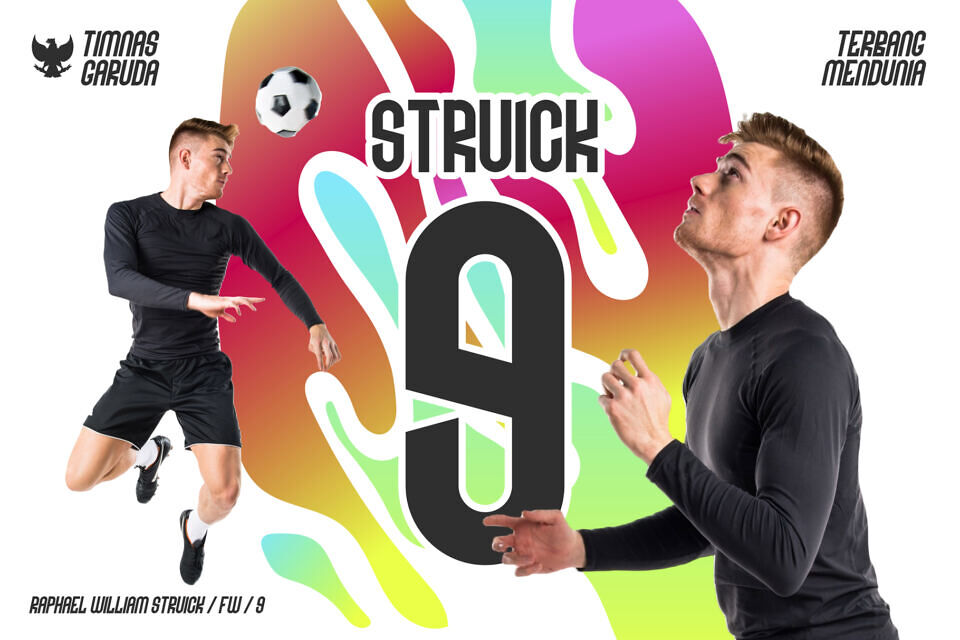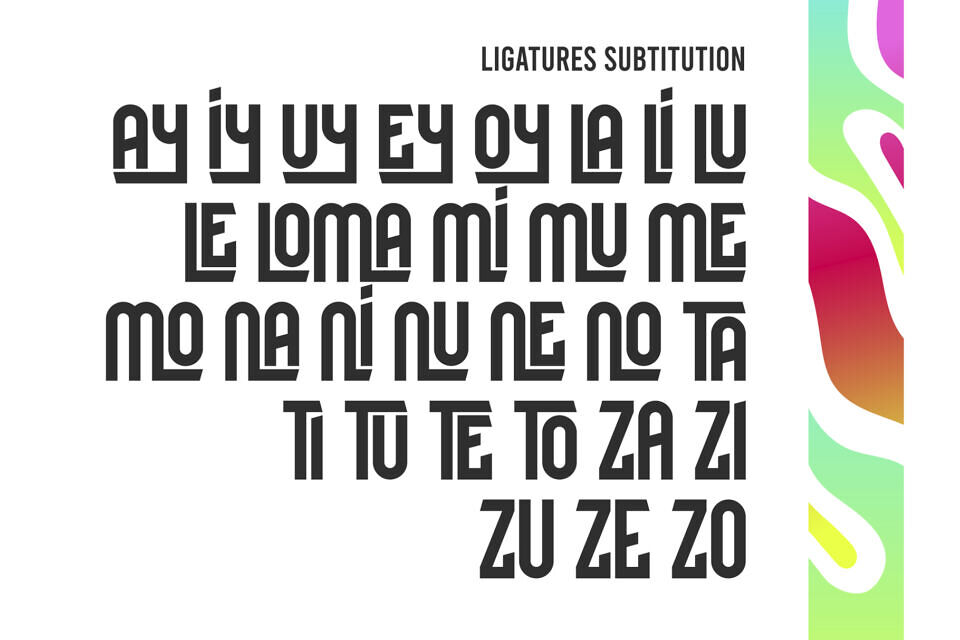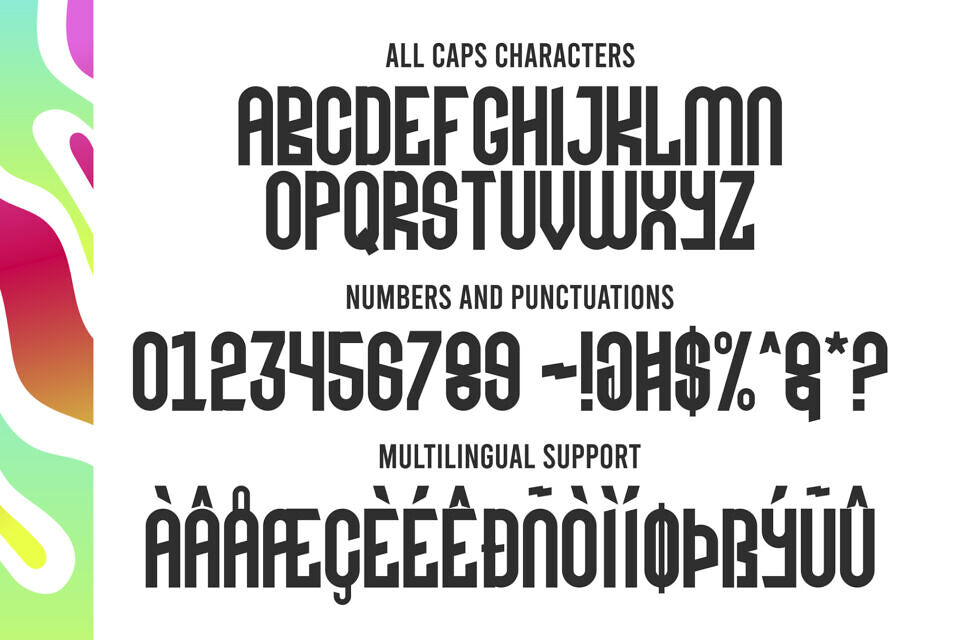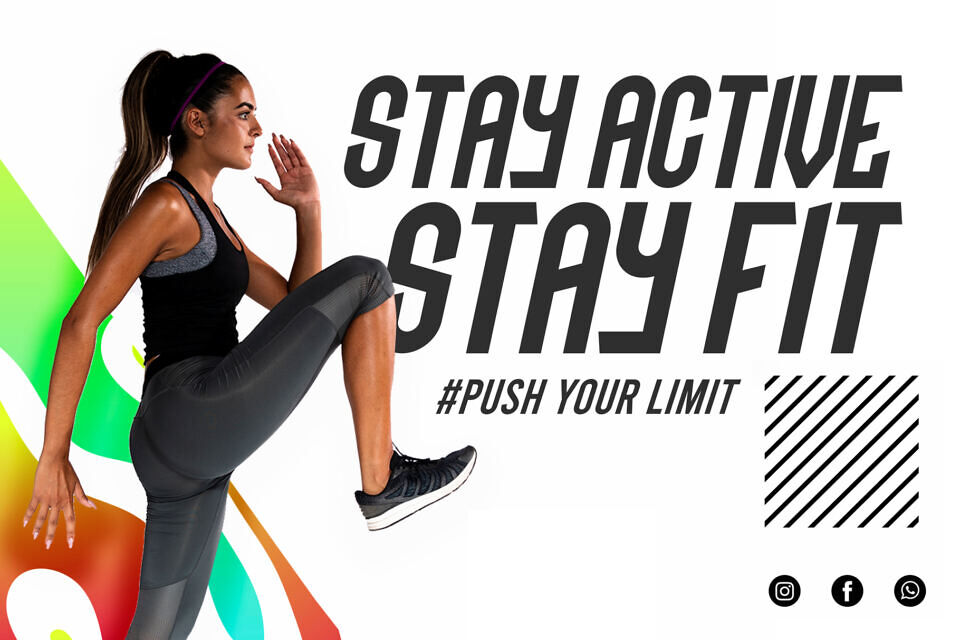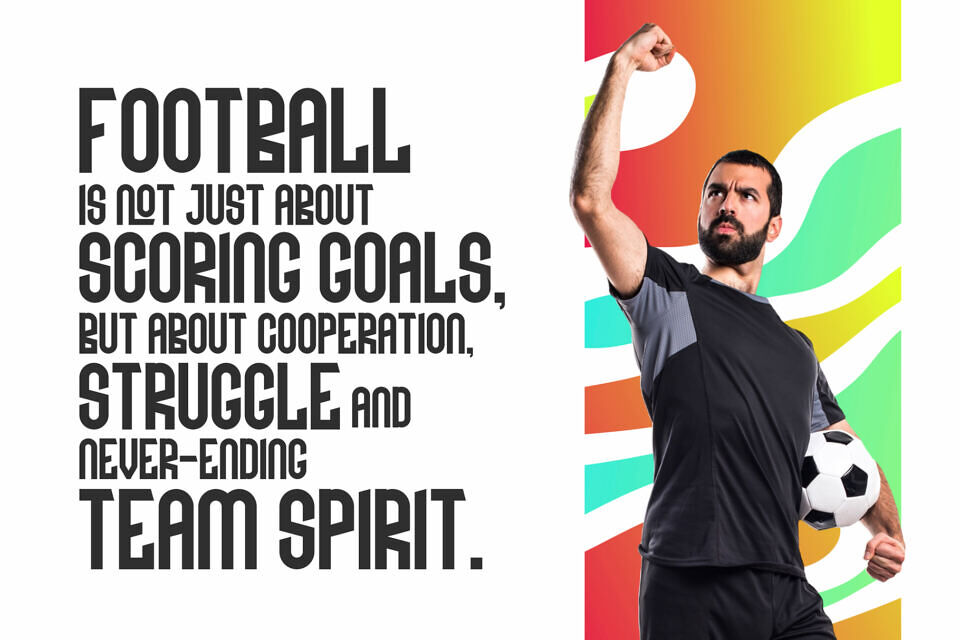
Turbo Drash Font
Turbo Drash is a bold sport display font designed to convey speed, power, and dynamic energy. Featuring extended letterforms, strong lines, and unique ligatures, it is ideal for logos, esports branding, athletic posters, and sports campaigns. Available in regular and italic styles with multilingual support, Turbo Drash ensures seamless integration across digital and print projects.
Its futuristic design, versatile italic motion, and commanding presence make it perfect for designers seeking to create high-impact headlines, energetic branding, and visually striking designs that capture attention and convey strength and intensity.